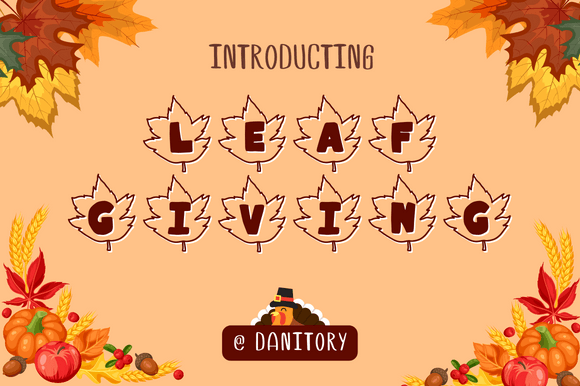
Behold, the Leaf Giving Font - a decorative font designed to capture the essence of the bountiful fall season. Dance through your creative projects with this font as your trusted companion, and you'll be amazed by the vibrant, eye-catching results. Bring a touch of autumnal charm to your festive printables, greeting cards, social media posts, and logos. Make your projects burst with the warmth of the season, and watch them come alive with the spirit of Thanksgiving.
With Leaf Giving Font, transform your digital creations into captivating works of art. Its graceful strokes evoke the beauty of falling leaves, the golden hues of autumn, and the cozy feeling of a warm Thanksgiving gathering. This font is not just a collection of letters; it's a gateway to a world of creative possibilities. It's the perfect choice for designers, bloggers, crafters, and anyone looking to add a touch of whimsy and charm to their designs.
Envision your Thanksgiving cards adorned with the Leaf Giving Font, carrying heartfelt messages to your loved ones. Picture your social media posts adorned with this font, captivating your audience with their festive charm. See your printables come to life with this font, adding a touch of autumnal elegance to your home décor. And watch your logos, branding materials, and marketing campaigns flourish with this font, setting you apart from the crowd and leaving a lasting impression.
So why settle for ordinary fonts when you can have the Leaf Giving Font? Embrace the beauty of fall, infuse your creativity with warmth, and let your projects shine with the charm of the season. Get your hands on the Leaf Giving Font today, and embark on a creative journey that will leave you breathless.